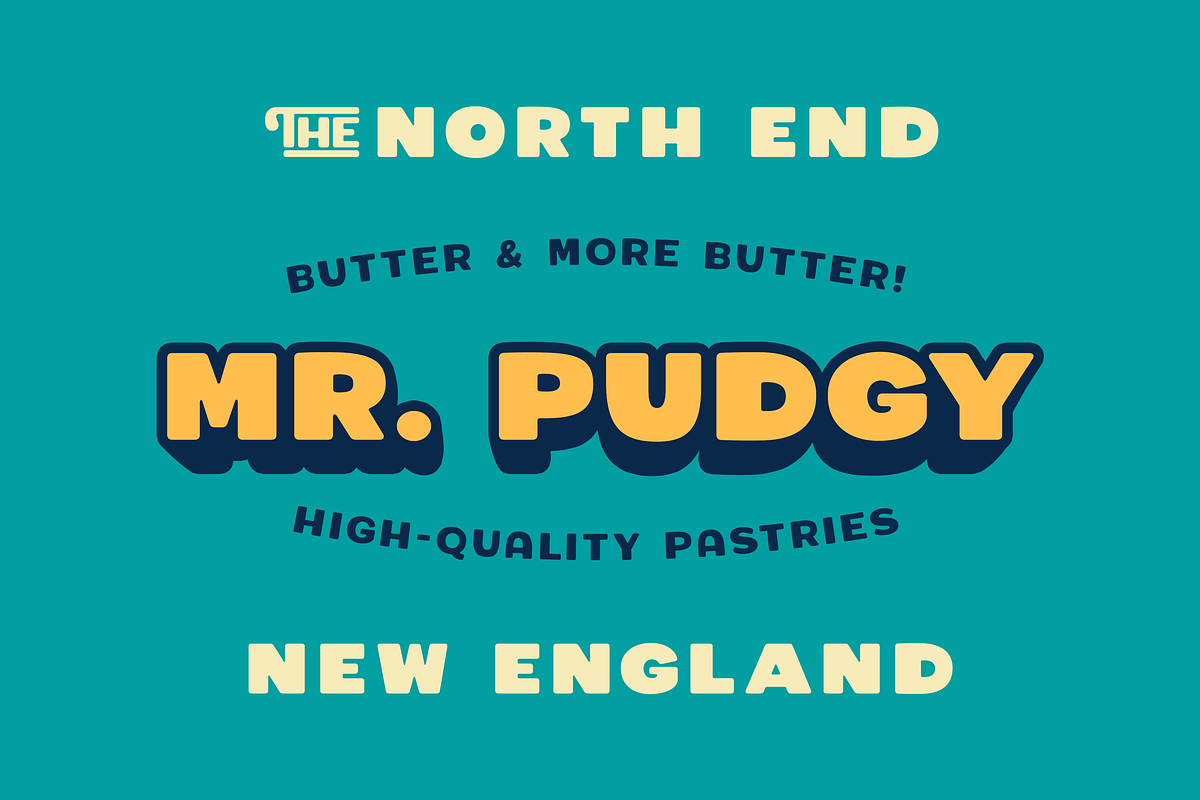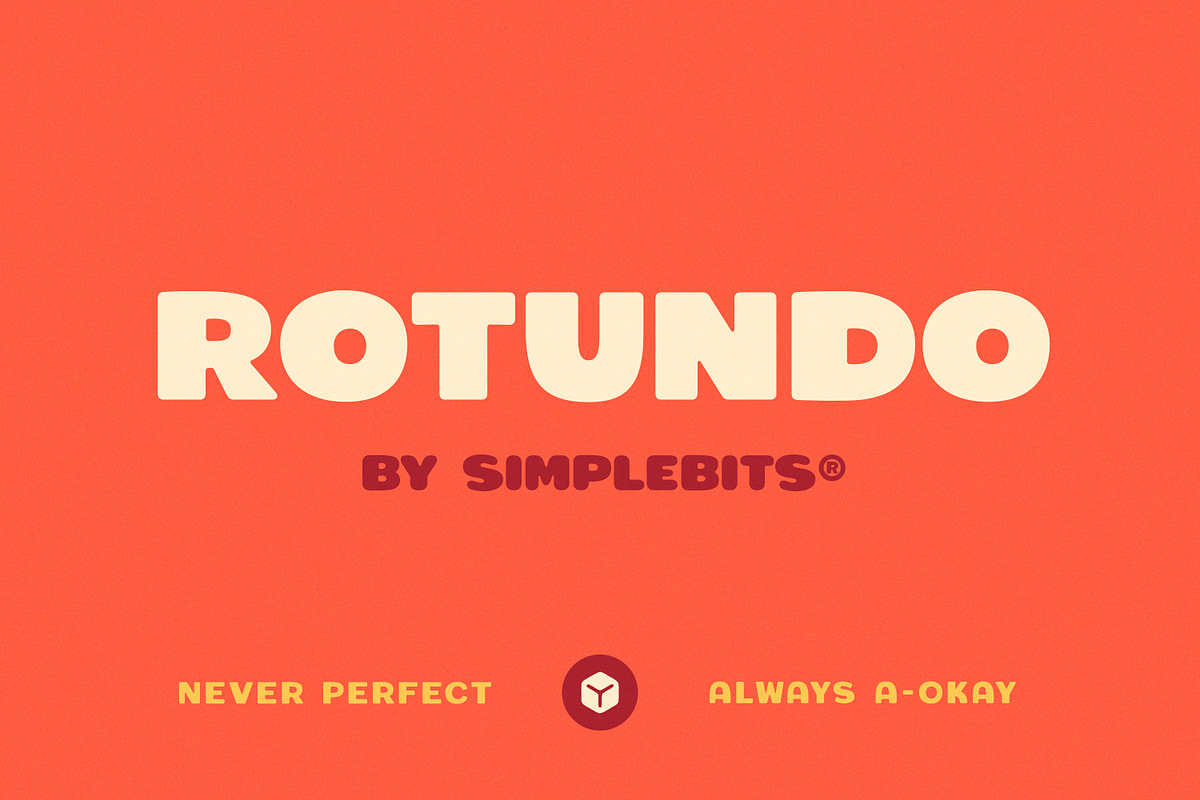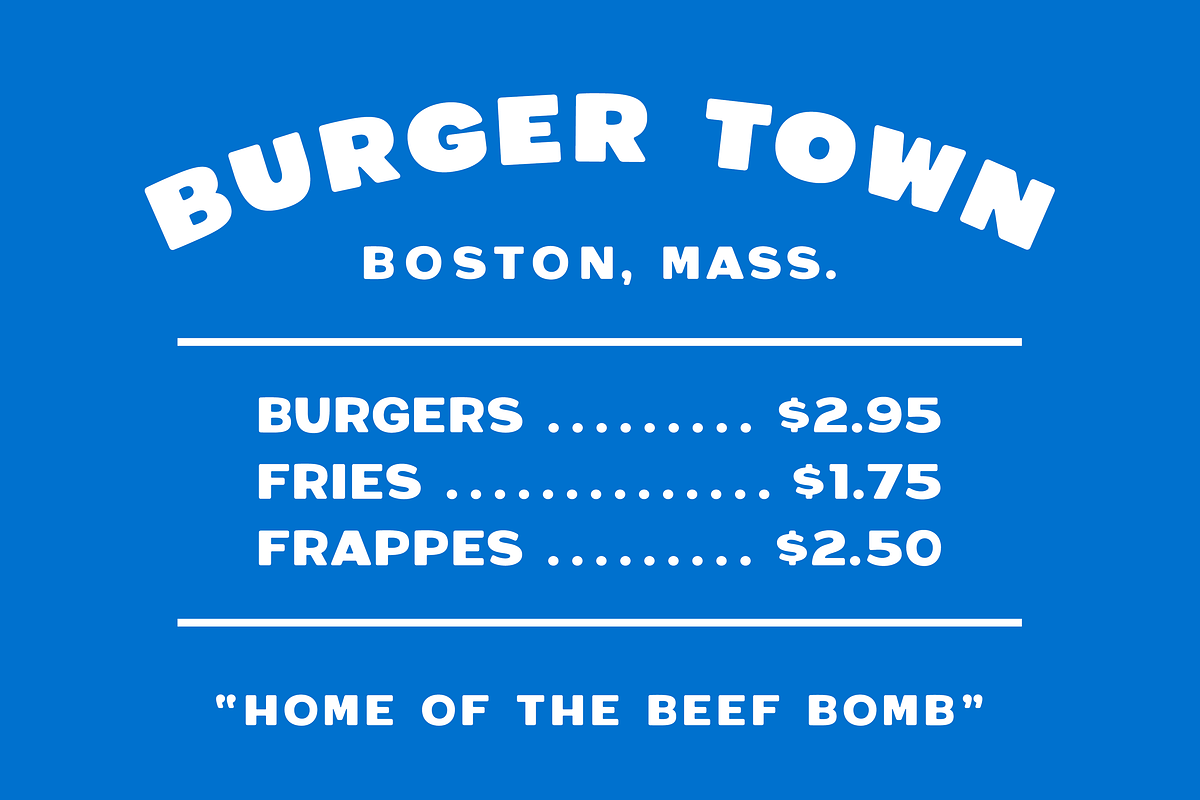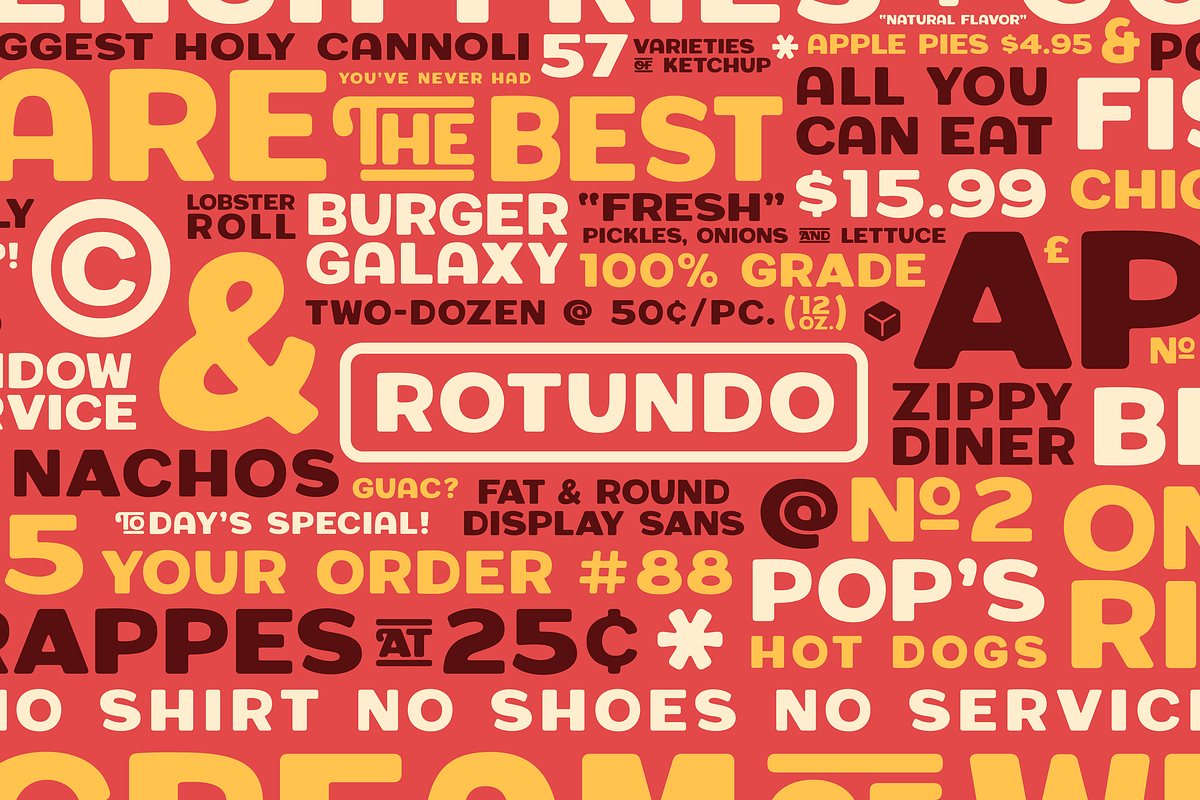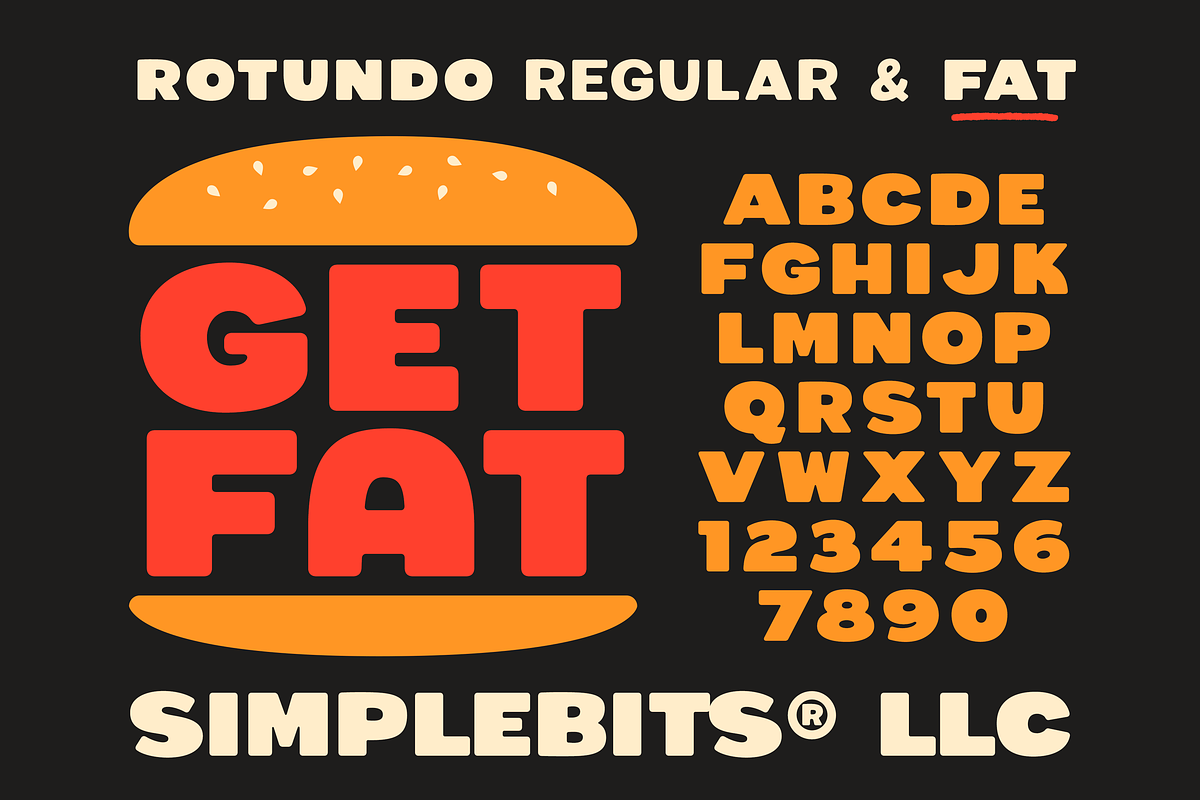
Rotundo — Friendly, pudgy sans
Fat & round. Thick & thin. Rotundo is a super-friendly, high-contrast display sans-serif. Perfect for logos, signage and anything needing pudgy character. Comes with two weights! Regular and Fat.
Includes numbers, basic punctuation, diacritics and support for some European languages—plus a few bonus alternate characters (A, &, #) as well as several discretionary ligatures in the Regular weight (AND, AT, BY, OF, THE, TO).